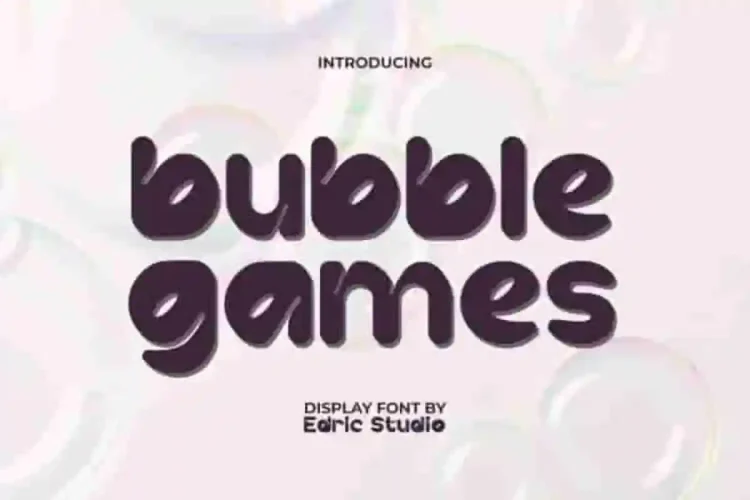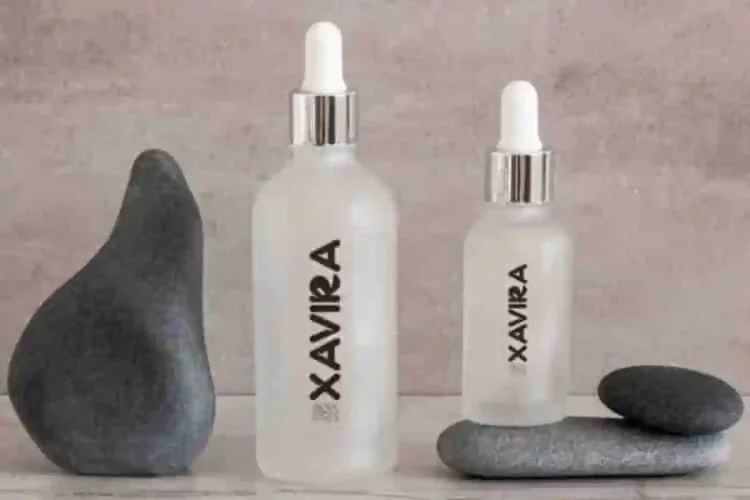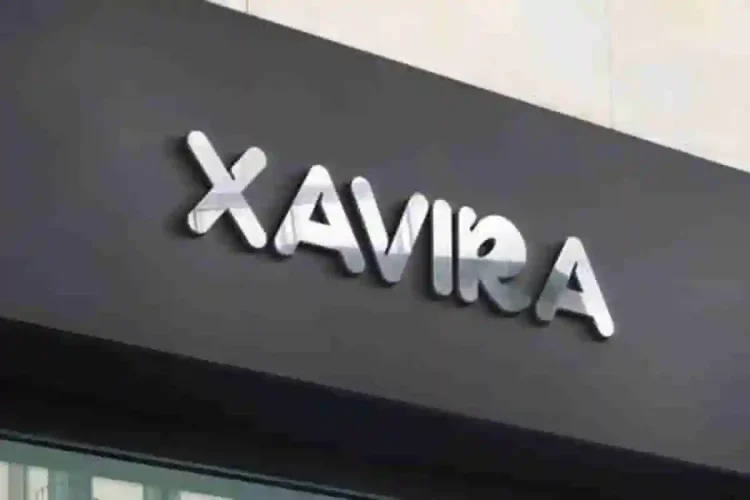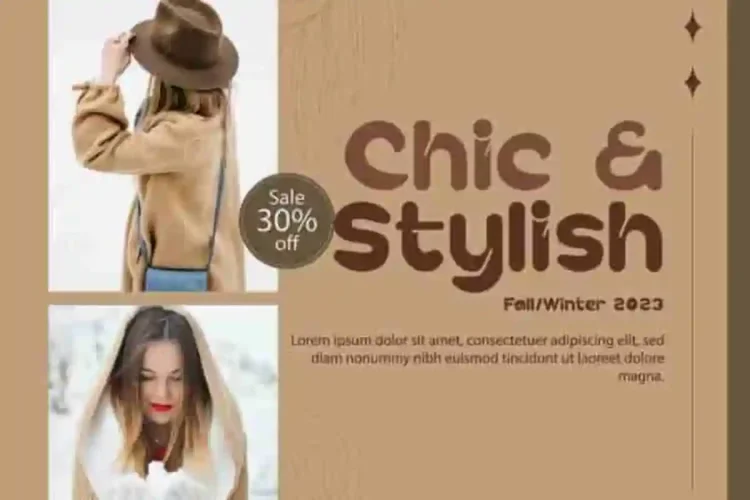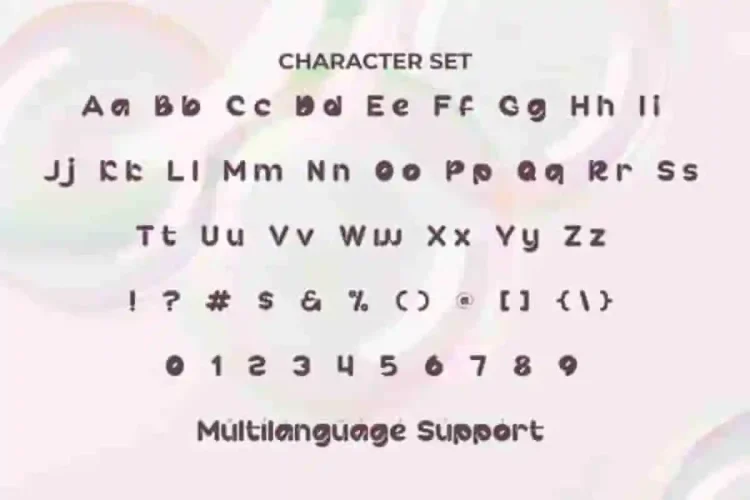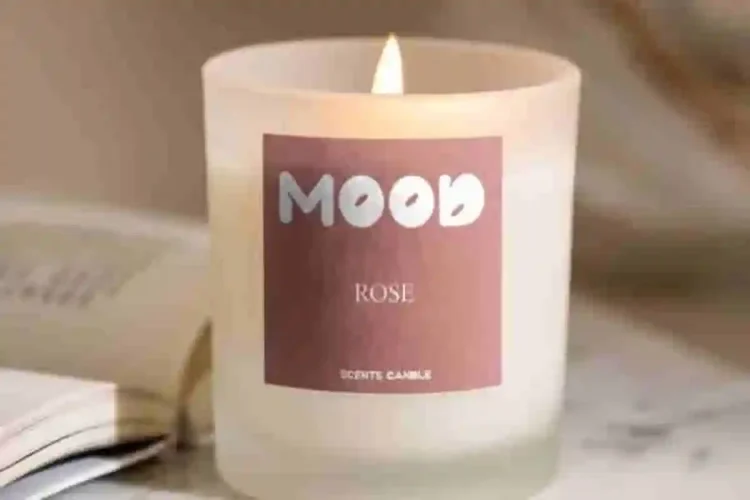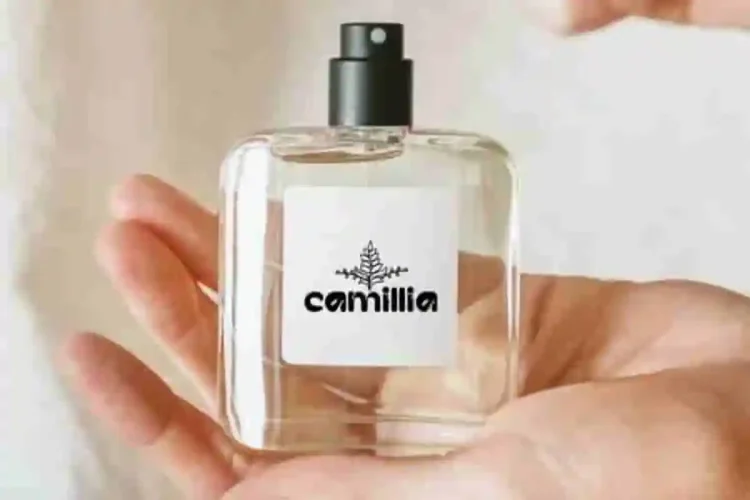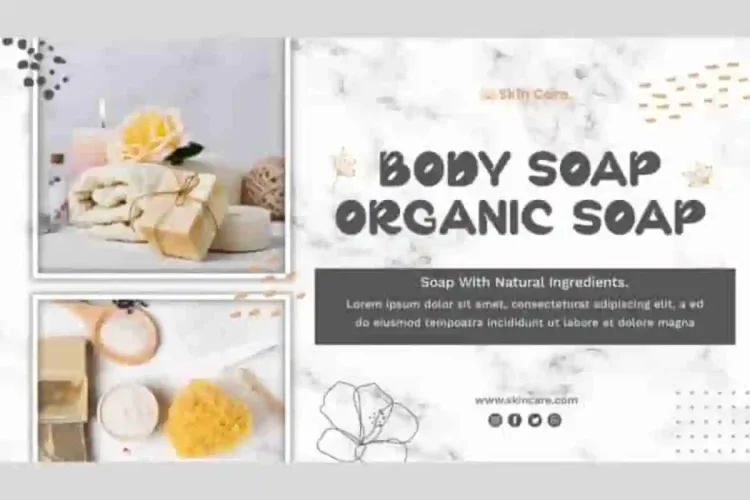
Bubble Games Display Font is a cheerful display font with fun dynamic bubbles in an attractive modern style. It’s a great choice for adding a touch of cute typography style to your apps, blogs, brand signs, brochure, business card, cover, flyer, greeting card, header, labels, logos, poster, product packaging, quotes, screen print, sticker, title, watermarks, website header, and anything that needs a fresh and vibrant look.
Bubble Games Comic Display Font brings a unique style to each letter. The creative bubble shape with strokes in every corner makes it not boring. makes every design stand out. This font comes with a complete set of Uppercase and Lowercase Letters, Numbers, Punctuation, and Symbols.
Bubble Games Display Font a playful typeface with unique decoration in each character. Combine different characters for a bespoke, handcrafted feel. It’s tested to work well in the Adobe Apps (Illustrator, Adobe InDesign, Adobe Photoshop) even work on Microsoft Word. Thanks to PUA encoding, every glyph and alternate character is accessible for custom creative control.